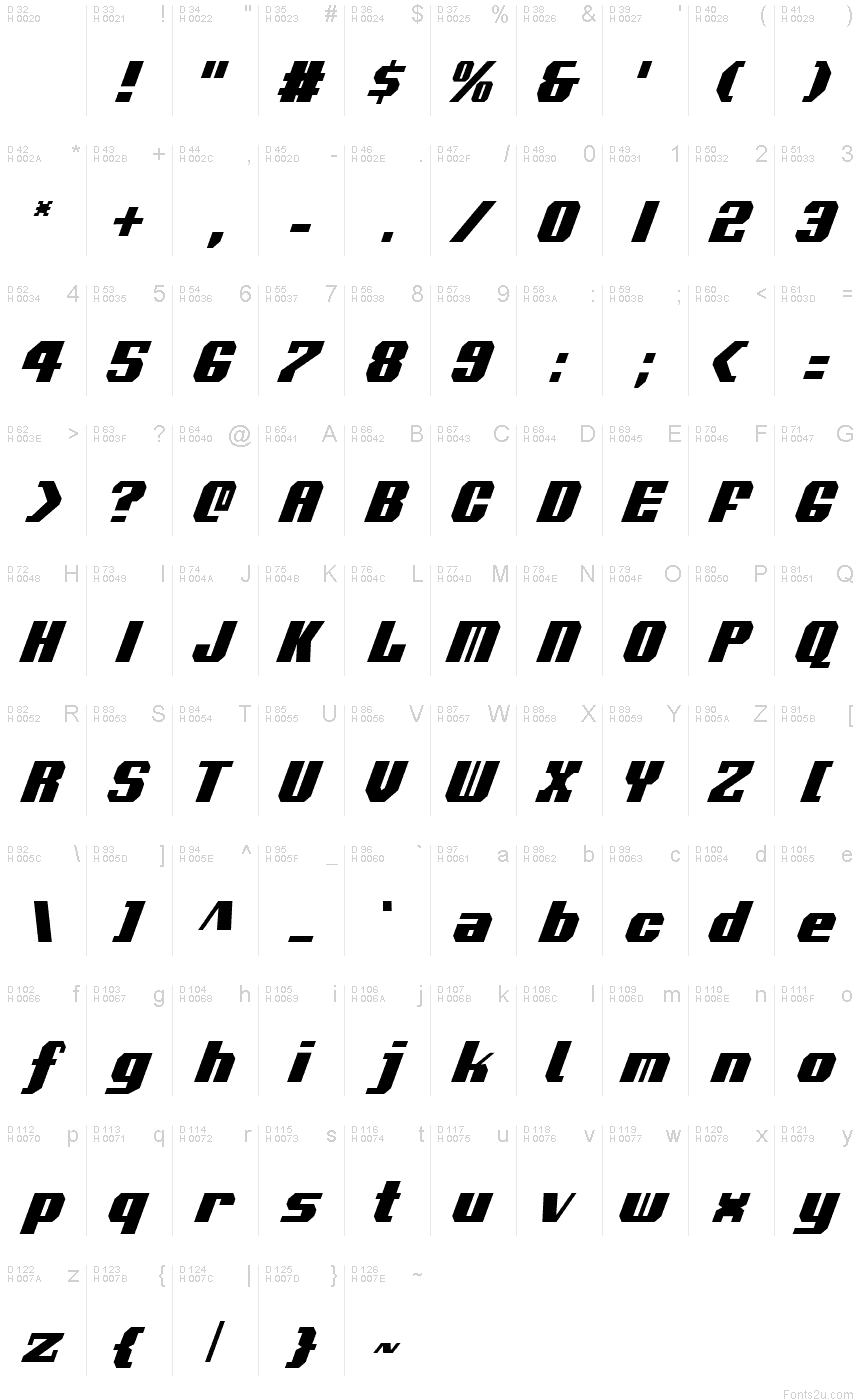
Voortrekker Condensed Italic by Iconian Fonts is a free techno display font built from broad strokes, squared curves, and sharp diagonal cuts. Every letter leans hard into motion.
A motorsport team, performance parts brand, or gaming event could use its compact, engineered silhouette for prominent logos and digital campaign graphics that suggest speed and mechanical power. The same forceful shapes suit action posters, sports merchandise, and science-fiction title cards, where lettering can become part of a vehicle stripe, badge, or machine-inspired emblem.